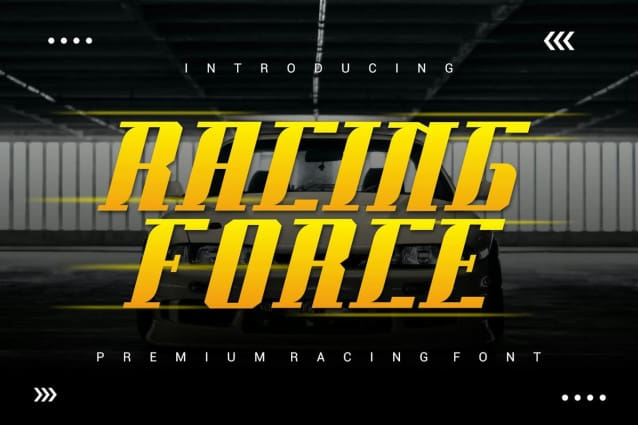
Racing Force Font
Racing Force Font is a bold, modern display font with a playful style, ideal for attention-grabbing headlines, logos and various design projects. Versatile and readable both digitally and in print, RacingForce adds a dynamic touch to your message.